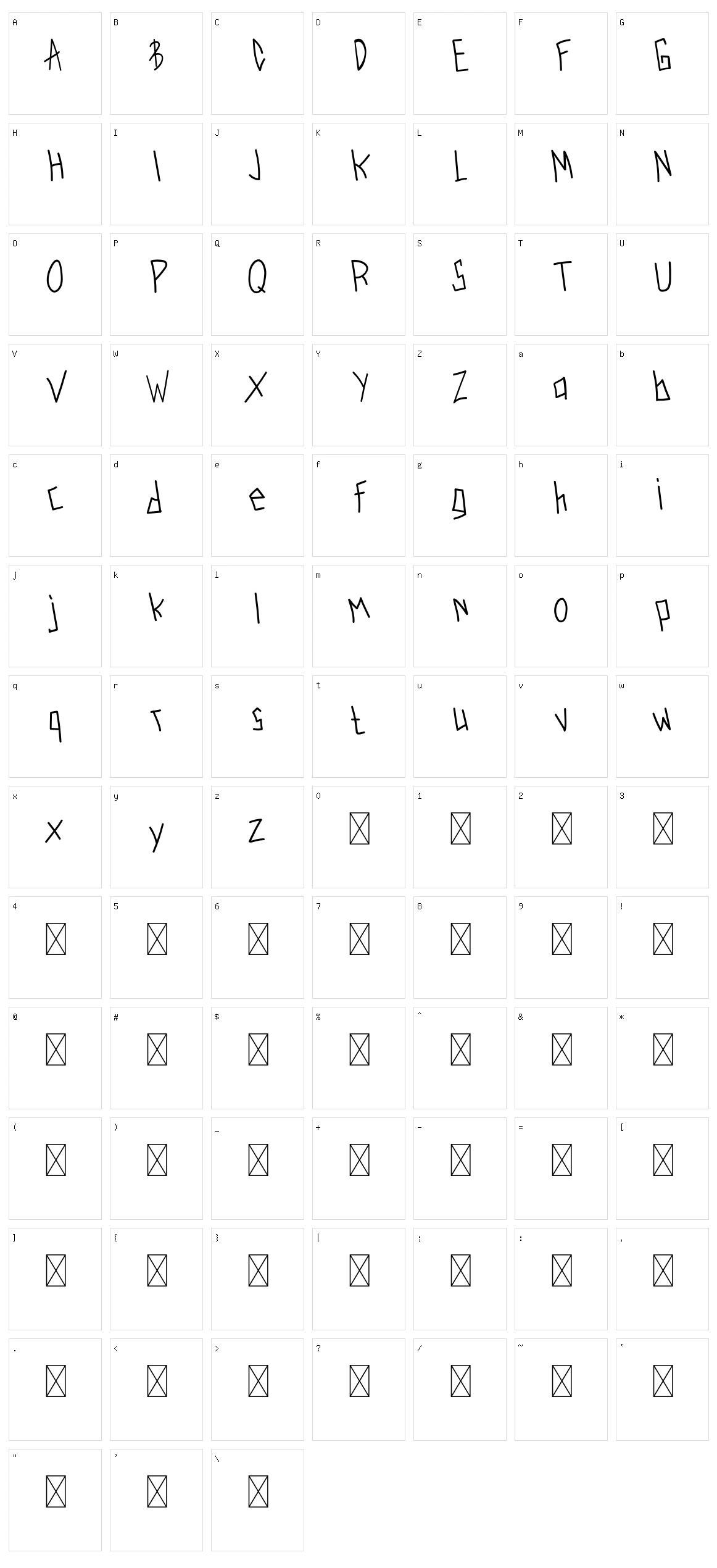
The free font Trumvolion is carefully designed by Portype Studio, showcasing a thoughtful balance of creativity and usability and falls under the Script font style. When you download the ZIP file, it contains only 16.12 KB of font files, making it lightweight and quick to download. Please review the license details below to understand permitted usage and distribution rights. If license information is not available, we recommend using this font for personal projects only or contacting the author directly for commercial usage permissions.